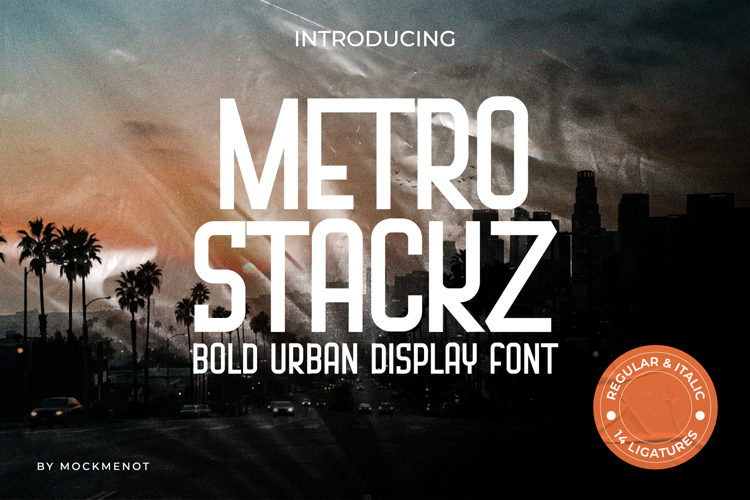
Metro Stackz Condensed Bold Display
Metro Stackz – Bold Urban Display Font
Metro Stackz is a bold urban display font inspired by the energy of modern city skylines, street culture, and contemporary typography trends. Designed with strong geometric forms and stacked letter structures, this typeface delivers a powerful visual impact perfect for eye-catching headlines and modern branding.
With its tall proportions, clean edges, and confident presence, Metro Stackz brings a modern metropolitan attitude to any design. It works beautifully in projects that require bold typography and strong personality.
Whether you're designing posters, branding, streetwear graphics, or social media content, Metro Stackz helps your text stand out with a distinctive urban style.
- Font Features
- Uppercase characters
- Numbers & punctuation
- 14 stylistic ligatures
- Regular & Italic style
- Clean and modern display letterforms
- Strong vertical proportions for impactful titles
Metro Stackz is designed to capture the bold rhythm of the city — powerful, modern, and unforgettable.